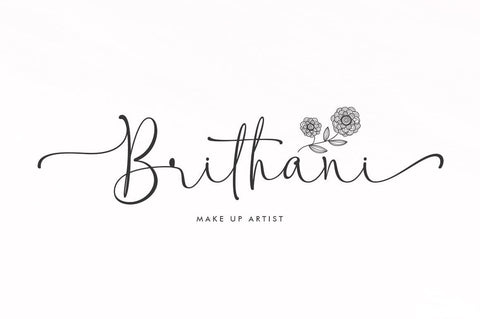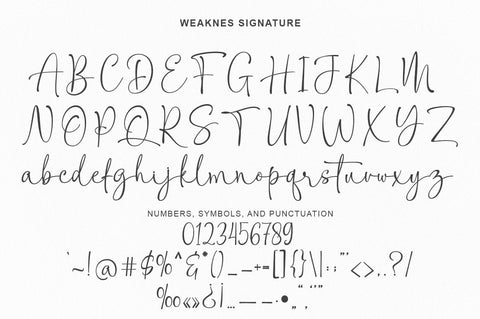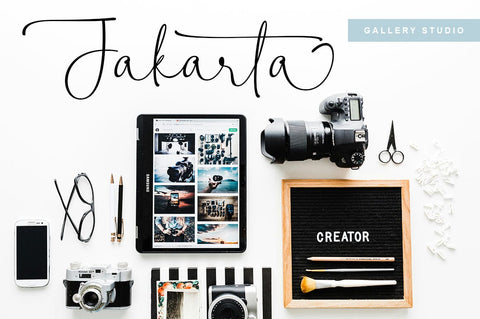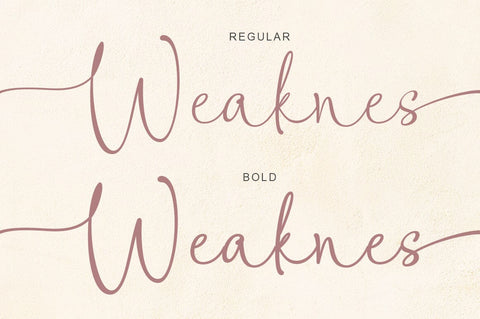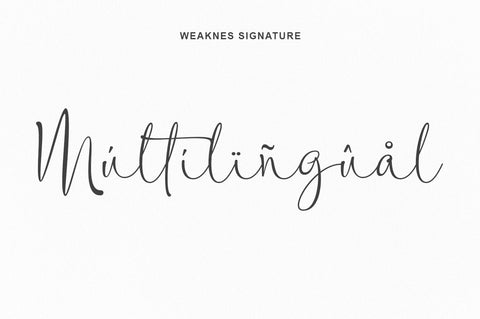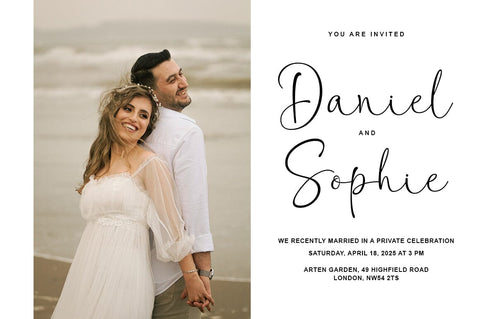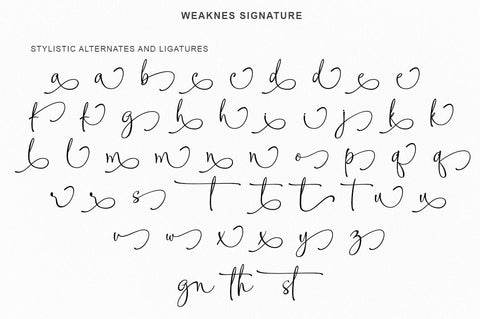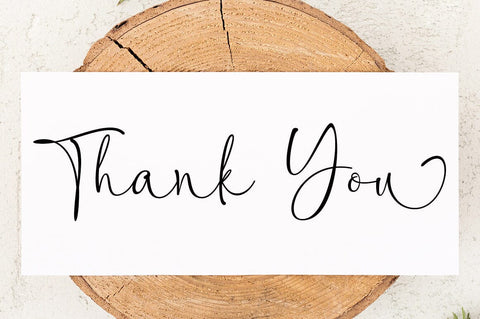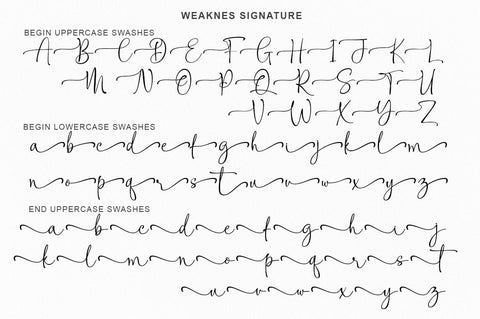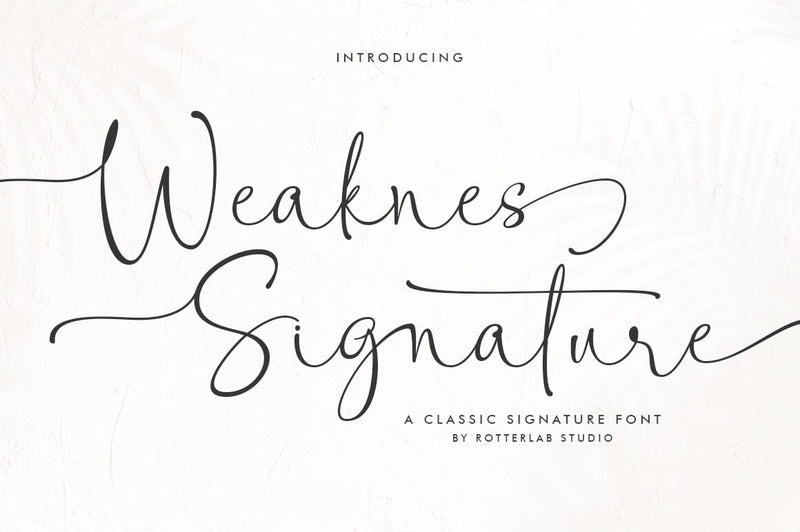
Weaknes Signature | Handwritten Font
Weaknes Signature is a brand new handwriting font, full of sweetness and friendly curves. With more subtle ligatures,
Weaknes Signature is inspired by neat cursive handwriting, and can add a human touch to your designs, from modern logos to instagram quotes, wedding stationery, printed collateral, websites, and more.